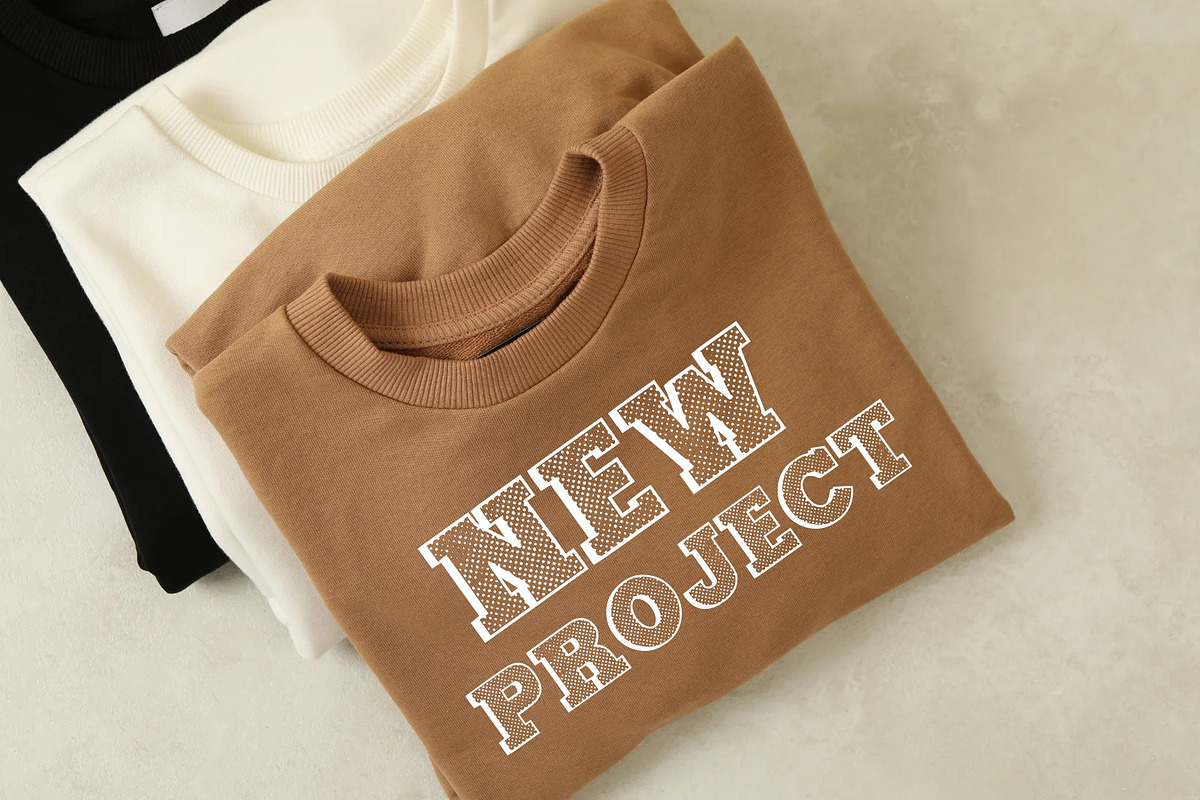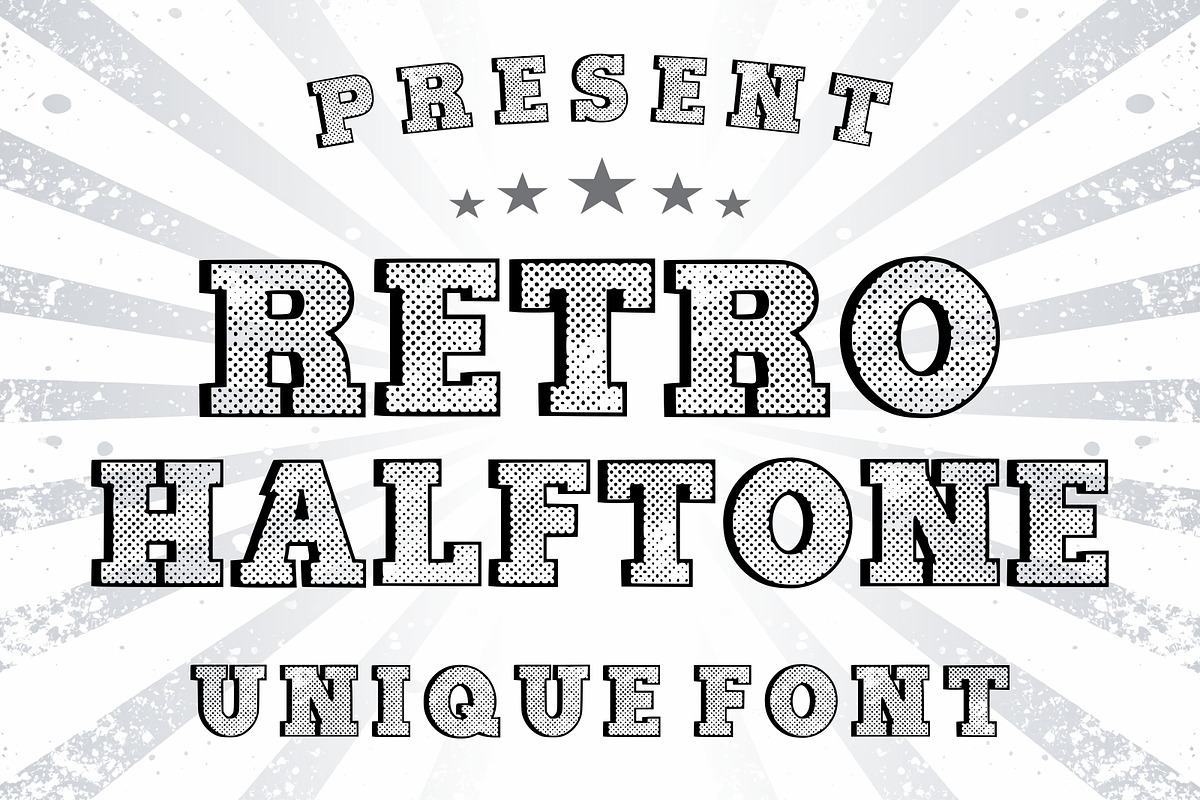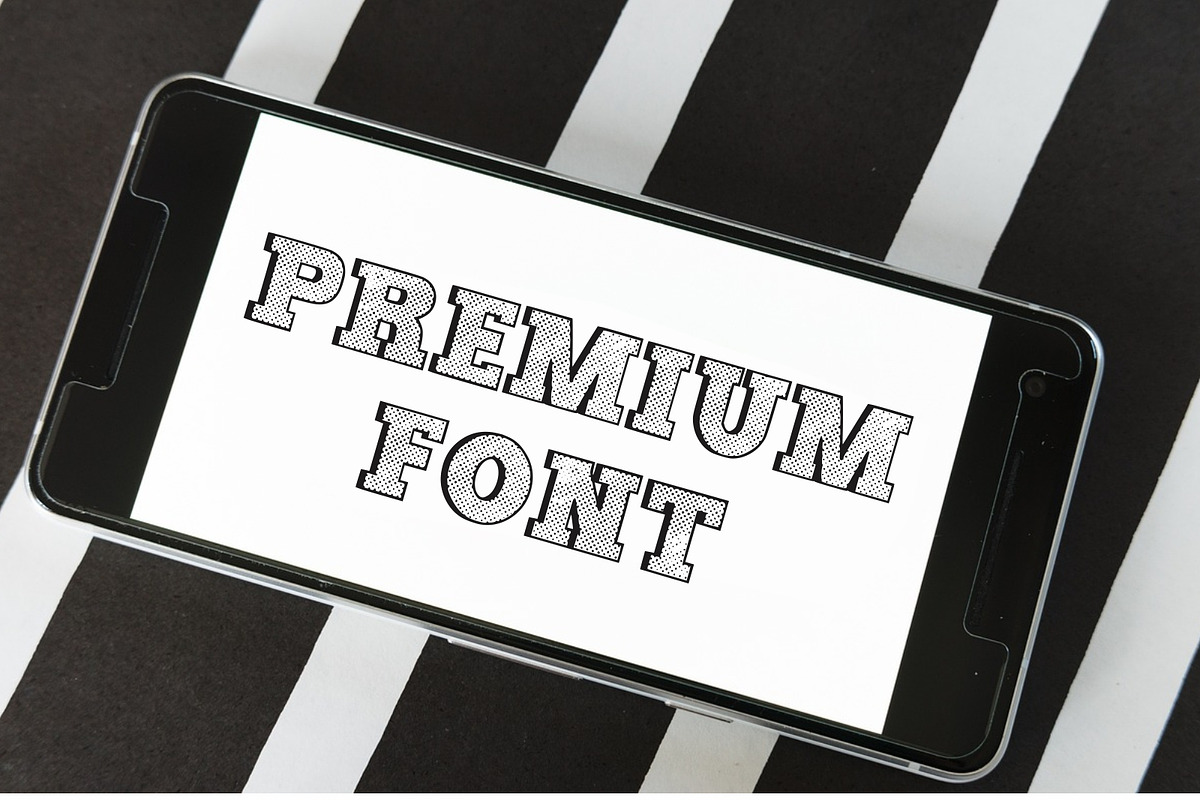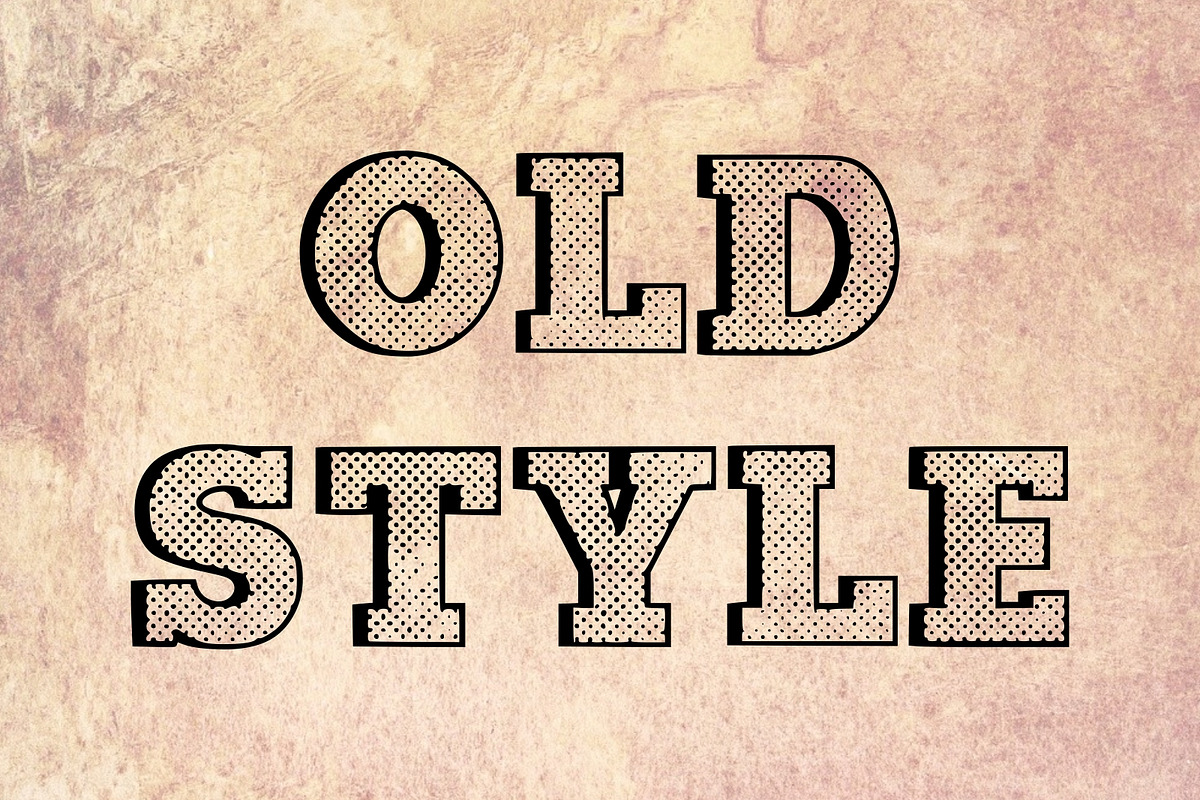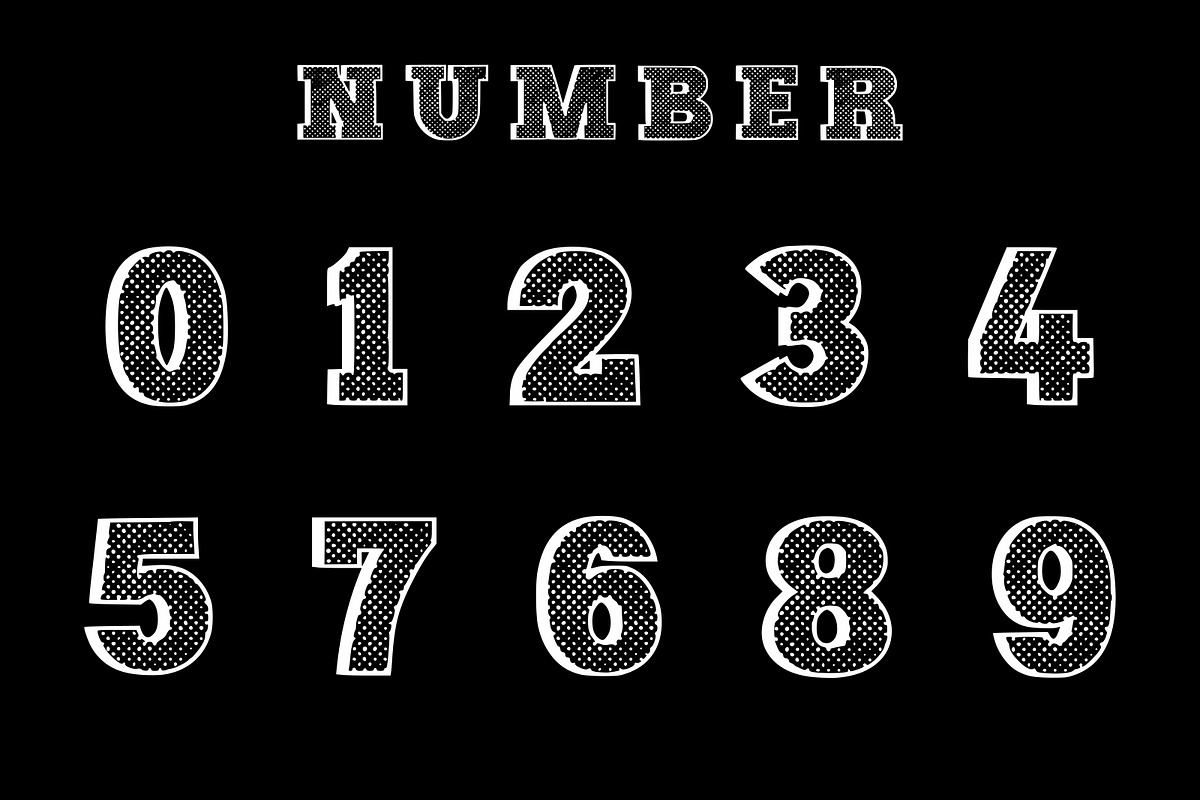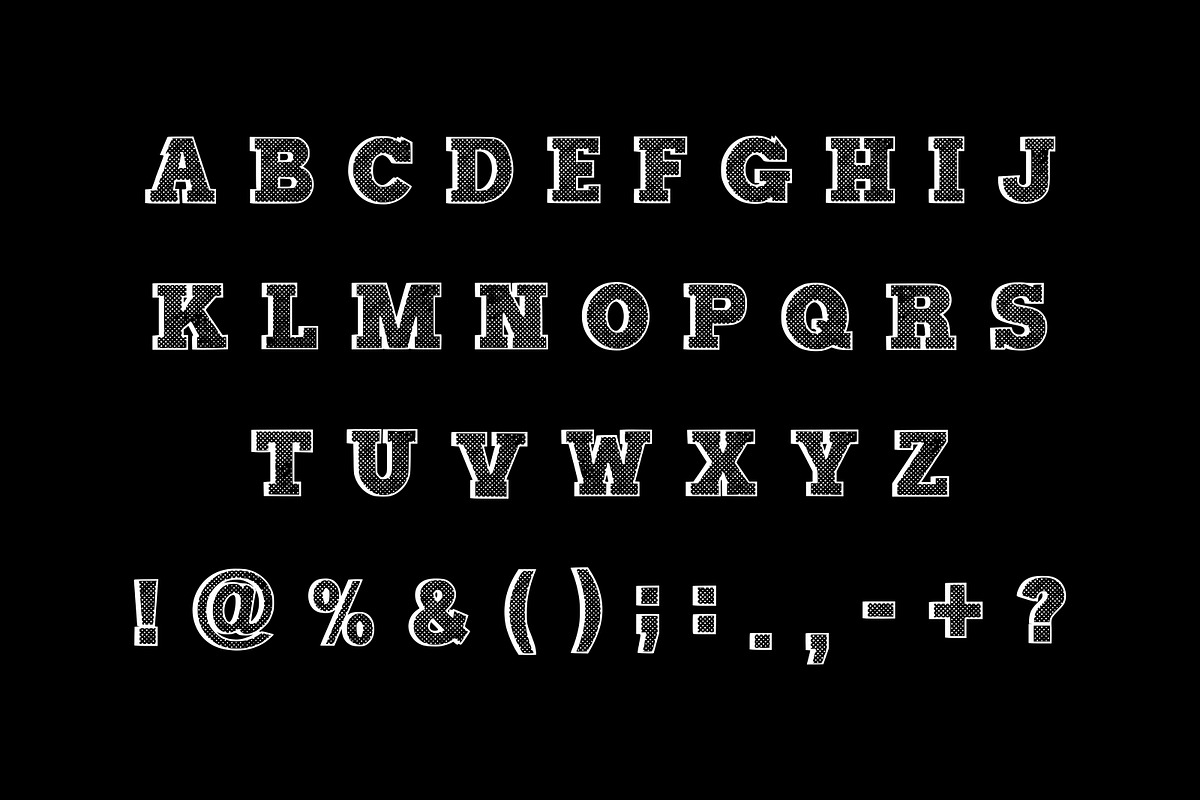
Retro Halftone – Vintage Font
Retro Halftone is a bold vintage-inspired display font designed to bring an authentic retro print feel to your creative projects. Its heavy slab-serif structure combined with a distinctive halftone dot texture creates a strong, energetic, and nostalgic visual style.
The bold letterforms remain highly visible while the halftone detailing adds character and a classic screen-print appearance.